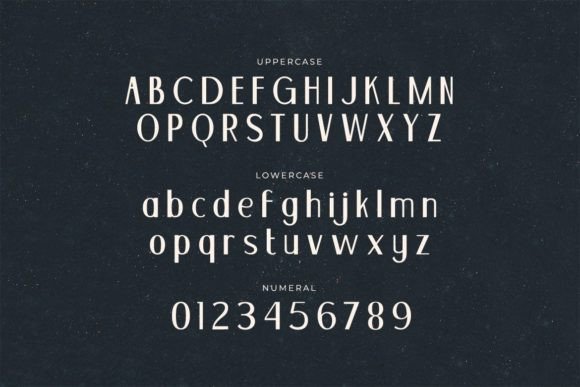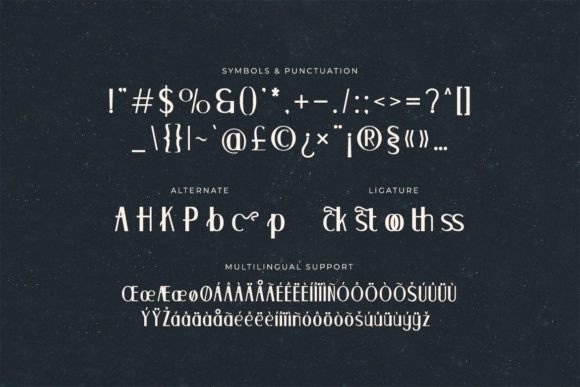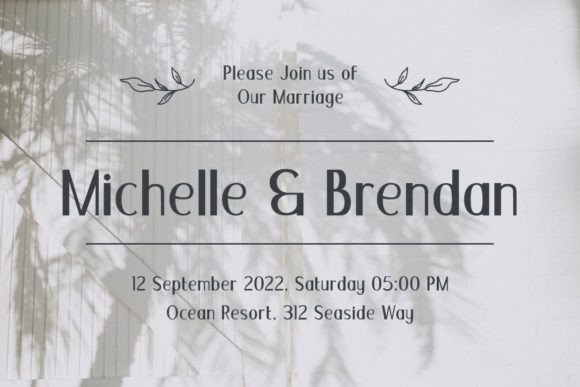
Introduction to Kuvinack Font
Have you ever been in the midst of a creative project, staring at a blank screen, desperately searching for the perfect font to bring your design to life? That’s a feeling we’re all too familiar with. But what if we told you that there’s a game-changing font that could elevate your work to new heights? Say hello to the Kuvinack Font, a stunning sans serif font that’s set to revolutionize your design library.
Key Features of Kuvinack Font
- Designed with a unique aesthetic, making it stand out from other fonts
Honest Review: Kuvinack Font
I recently stumbled upon the Kuvinack Font, and I must say it’s a hidden gem in the world of design resources. As a designer, I’m always on the lookout for high-quality fonts that can elevate my creative projects. Kuvinack Font is a perfect addition to my collection.
What works well: ✨ The font is incredibly versatile, making it suitable for a wide range of design applications, from logos and branding to digital products and graphics. The clean and modern design makes it easy to read and visually appealing. The transparent background feature is also a plus, allowing for seamless integration with other design elements.
However, I did encounter a few limitations: ⚠️ The font is only available in a few weights, which may not be suitable for all design applications. Additionally, the font may not be as unique as some other design resources available.
Overall, I’m impressed with the Kuvinack Font. It’s a solid addition to any designer’s collection, and I’d highly recommend it for any creative project. While it may have some limitations, its versatility and high-quality design make it a valuable resource for designers of all levels.
The Kuvinack Font is a high-quality design resource ideal for creative projects that require a unique touch. With its transparent background, this font offers endless possibilities for customization.
Tips for Getting the Most Out of Kuvinack Font
For the best results, use Kuvinack Font in combination with a high-contrast background to make the text stand out. Experiment with different font sizes and styles to create a visually appealing design.
The Kuvinack Font is ideal for use in logos, branding materials, and other creative projects where a unique and eye-catching font is required. Its transparent background makes it perfect for use on top of images or other design elements.